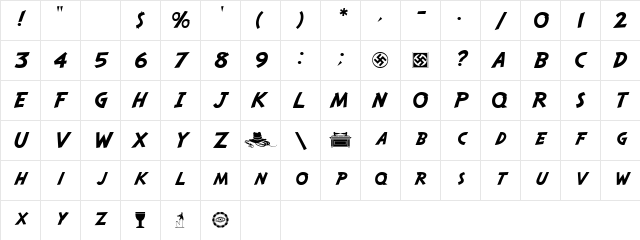
Complete SafariRegular glyph index. Displaying only characters natively supported by SafariRegular font.
SafariRegular is a composed and adaptable typeface that performs quietly and consistently across a wide range of design contexts.